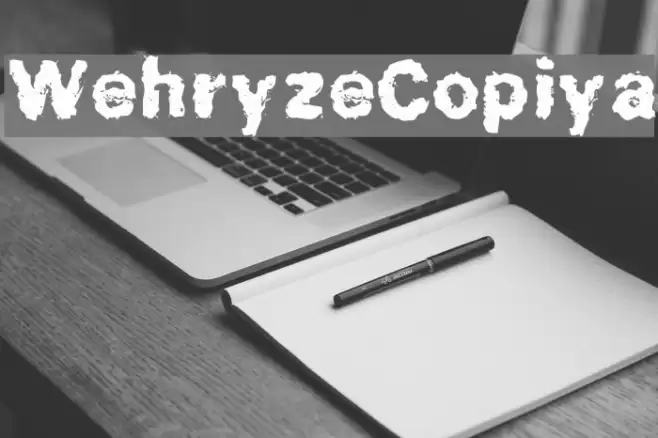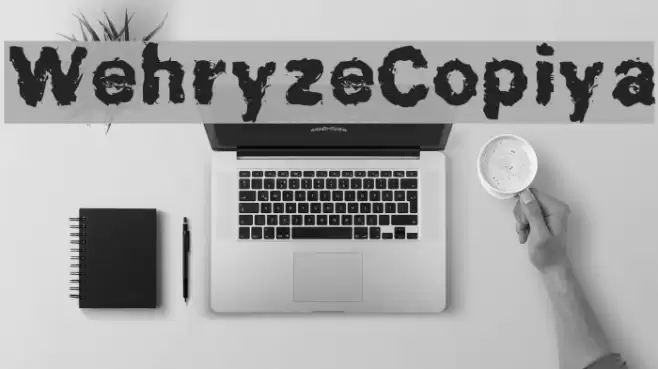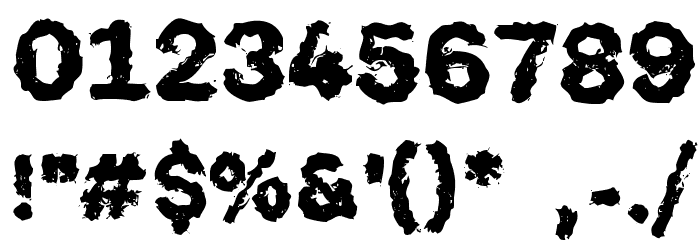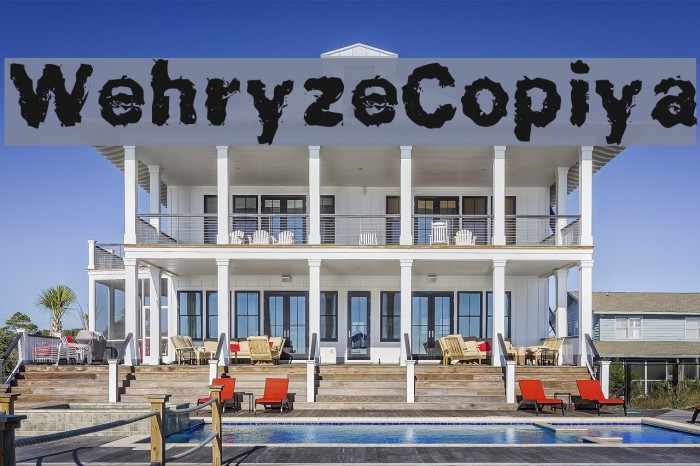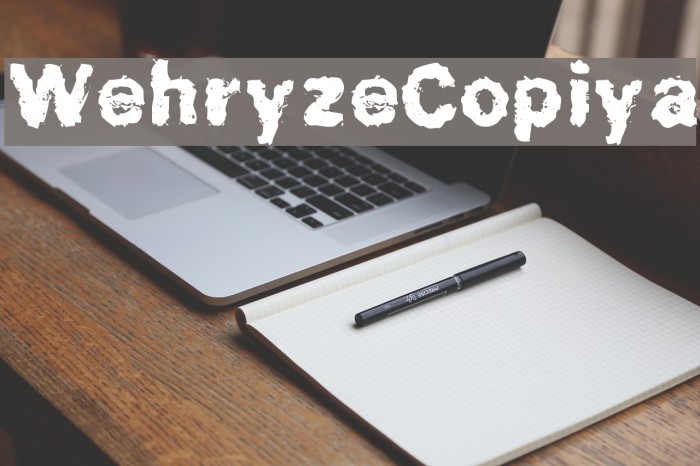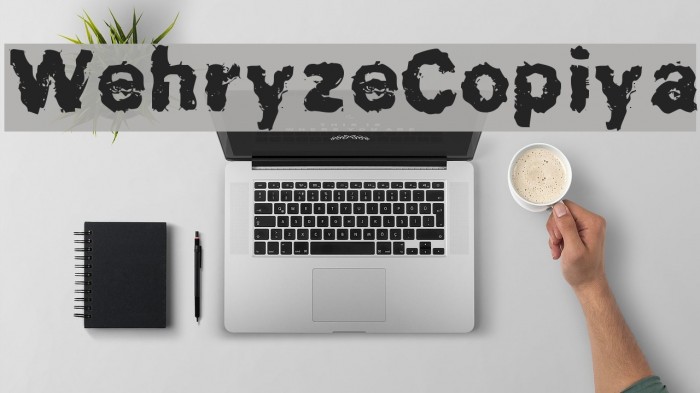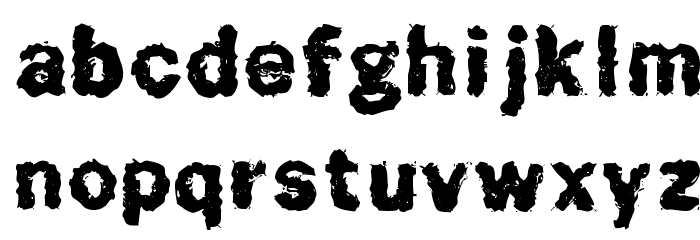
WehryzeCopiya Font
WehryzeCopiya Description
This font features a rugged, distressed style with a textured appearance that mimics the look of worn or eroded surfaces. The characters are bold and have an irregular outline, giving them a unique, hand-crafted feel. The uppercase and lowercase letters maintain a consistent style, with the same rough edges and uneven strokes. Numbers and special characters follow the same design, ensuring a cohesive look across all glyphs. This font is ideal for projects that require a gritty, urban aesthetic or a vintage, weathered look.
A bold, distressed font with a rugged, textured appearance from Distorted Eroded fonts.
- Proposed Projects: Ideal for posters, album covers, branding for edgy or vintage-themed products, and any design needing a gritty, urban aesthetic.
- Overall Style: Vintage, Decorative